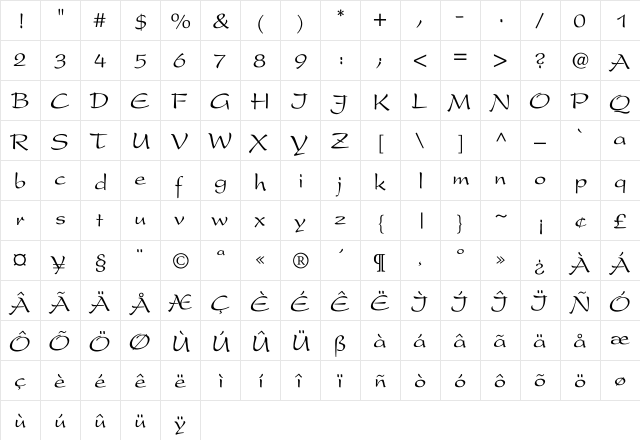
Slatong Regular Font Preview
Slatong Regular
Design Context for Slatong Typeface
Slatong is a composed and adaptable typeface that performs quietly and consistently across a wide range of design contexts.